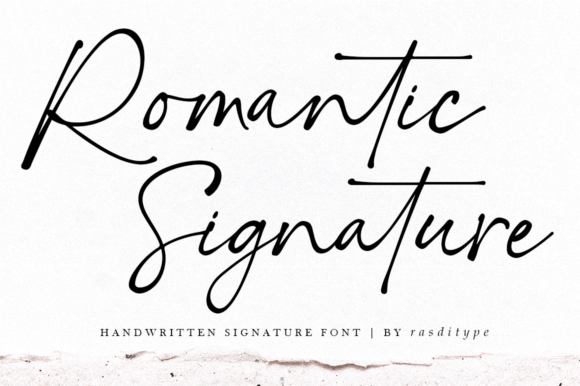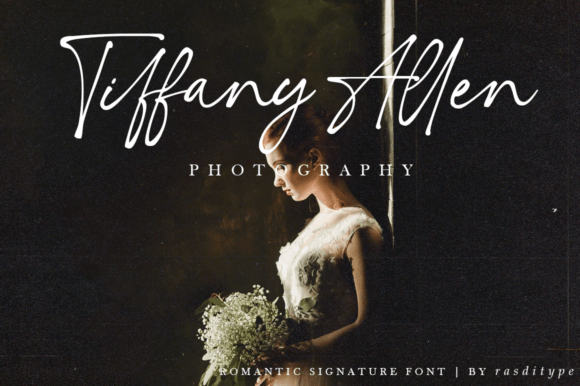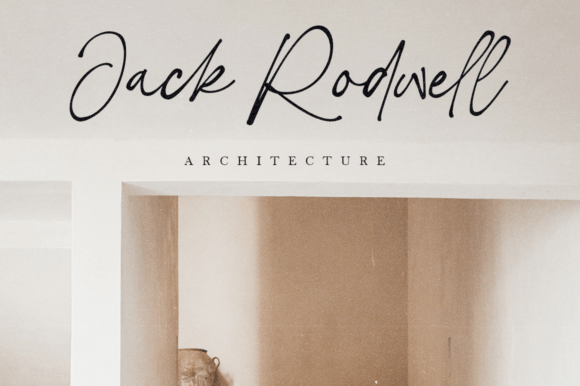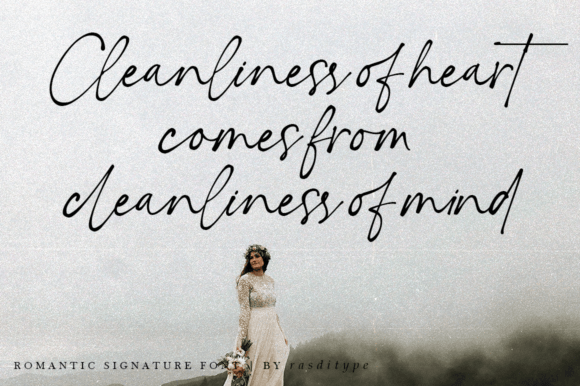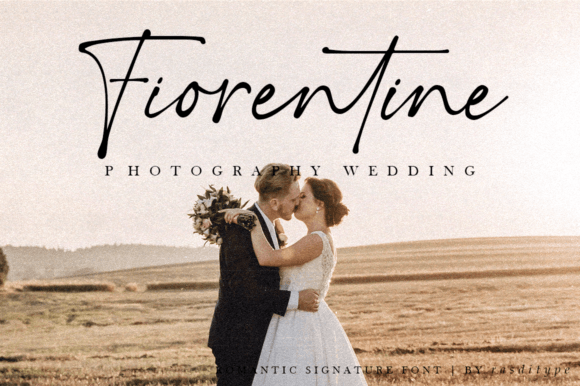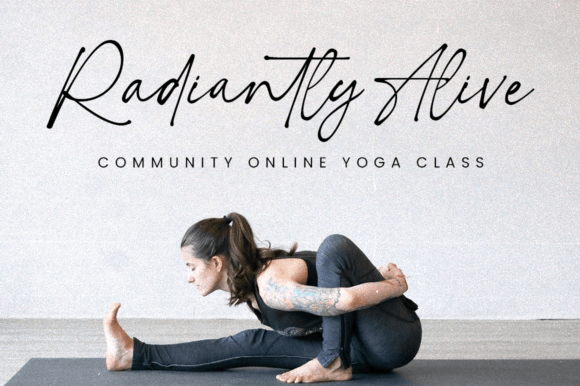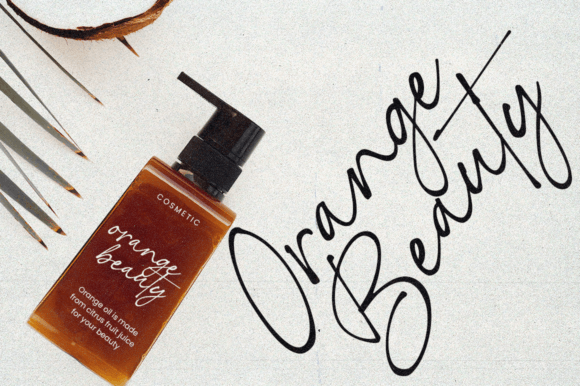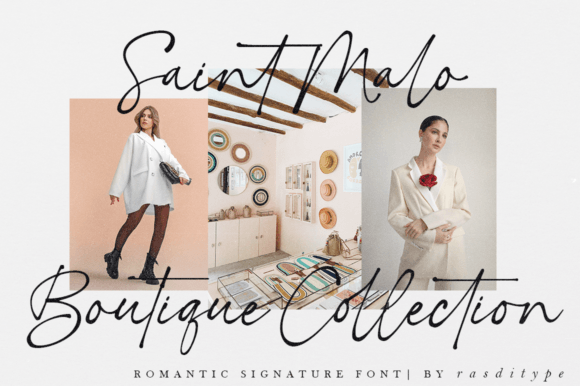
Romantic Signature Font
About Romantic Signature Font
Romantic Signature Font is a stunning handwritten script that captures the essence of elegance and sophistication. With its exquisite, flowing letters, this font brings a sense of grace and authenticity to any project. Romantic Signature is designed to look like true cursive handwriting, making it an ideal choice for designs that need a personal, heartfelt touch.
From wedding invitations to professional branding, this font helps you express your ideas beautifully. If you want your designs to stand out with refined style, Romantic Signature will deliver remarkable results every time.
Elegant Cursive Style
The core appeal of Romantic Signature lies in its smooth, delicate calligraphy. Every letter is carefully crafted with balanced curves and graceful lines. This gives your text a romantic, polished look that feels genuinely handwritten.
Whether you’re designing an invitation, a logo, or a social media graphic, Romantic Signature’s elegant style instantly elevates your work. It’s perfect for projects that require a luxurious, refined aesthetic.
Versatile Use Across Projects
Romantic Signature is incredibly versatile. It works beautifully in a wide range of applications, both digital and print. Here are some inspiring ways to use it:
• Wedding Invitations: Make every detail feel special with graceful script.
• Personal Branding: Create logos and signatures that feel exclusive and memorable.
• Greeting Cards: Add an authentic handwritten touch to your messages.
• Product Packaging: Elevate your labels and packaging with a premium look.
• Social Media Graphics: Design elegant posts that attract attention.
• Event Announcements: Set a sophisticated tone for any occasion.
• Website Banners: Impress visitors with stunning typography.
• Photography Watermarks: Sign your work with a stylish signature.
No matter the purpose, Romantic Signature adds a distinctive flair to any creative project.
Romantic Signature includes uppercase and lowercase letters, numerals, and punctuation. Because this font is PUA encoded, you can access all the unique glyphs, ligatures, and swashes easily. This makes it simple to customize your text and add beautiful flourishes to your designs.
Make a Memorable Impression
Using Romantic Signature shows that you care about the details. Its refined, authentic handwriting style creates an emotional connection with your audience. Whether you’re sending a heartfelt note or designing a luxury brand, this font ensures your message looks polished and professional.
If you want to make your designs unforgettable, Romantic Signature is the perfect choice.
Why Choose Romantic Signature Font?
• Elegant Script Style: Adds sophistication to any project.
• Authentic Feel: Looks like true cursive handwriting.
• PUA Encoded: Easy access to all glyphs and swashes.
• Versatile Applications: Perfect for print and digital designs.
• User-Friendly: Works in all major design programs.
With Romantic Signature, you can elevate your creative projects with ease and confidence.